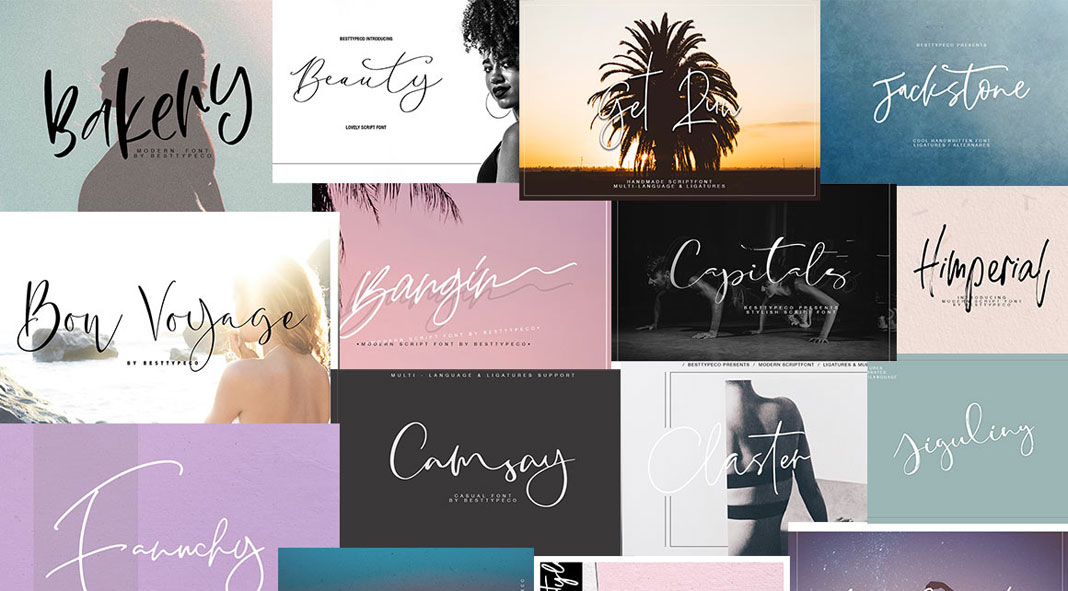
Equipped with stylish script fonts and additional display styles, this huge bundle contains 50 versatile fonts.
This new bundle includes 50 unique fonts that have been carefully selected to evoke emotions ranging from action, curiosity, confidence, trust, and consistency. Equipped with both hand-drawn script fonts and additional display styles, these typefaces will emphasize your designs.
The fonts are well suited for a variety of graphic design and web design projects. They are perfect for logotypes, headers, branding projects, signage, apparel, and so much more.